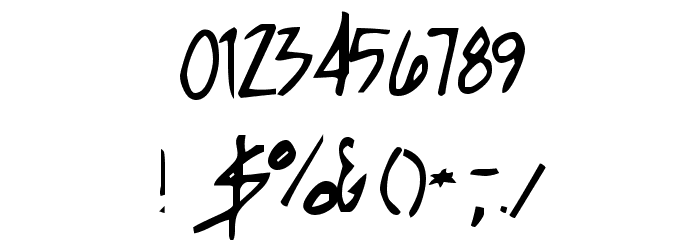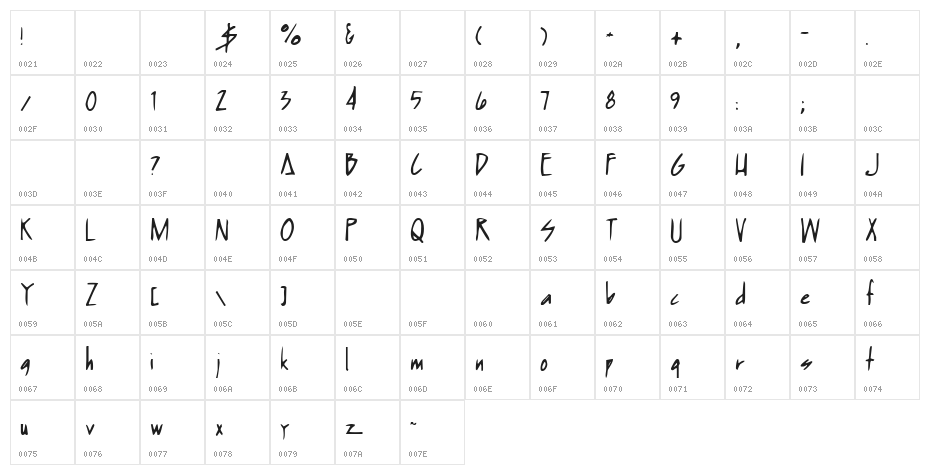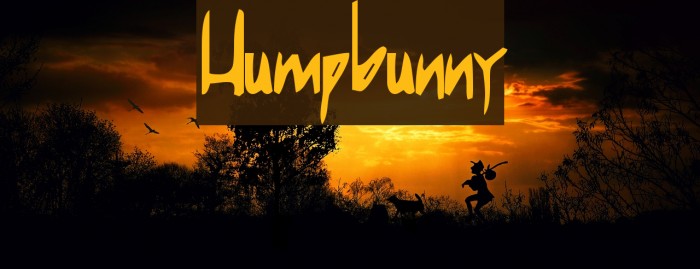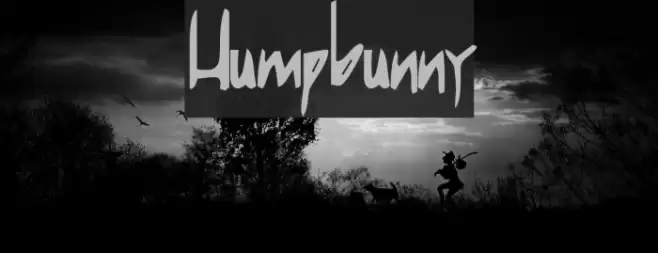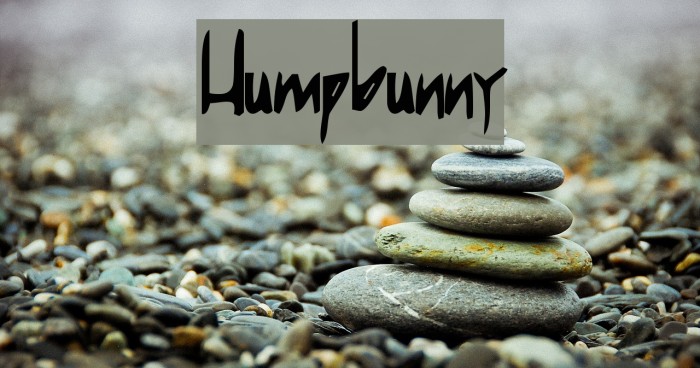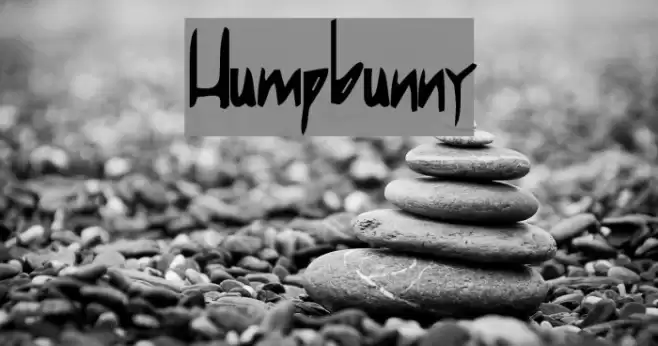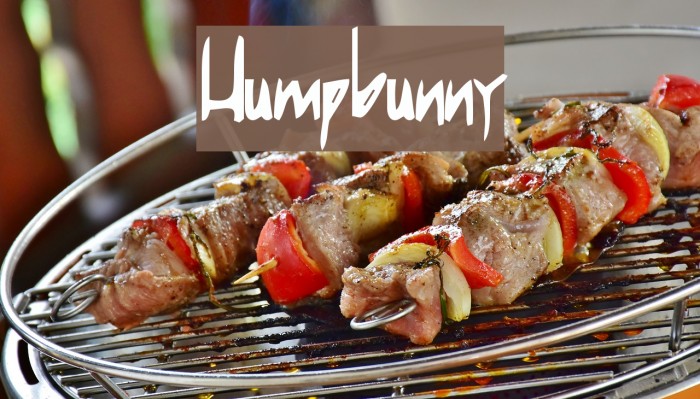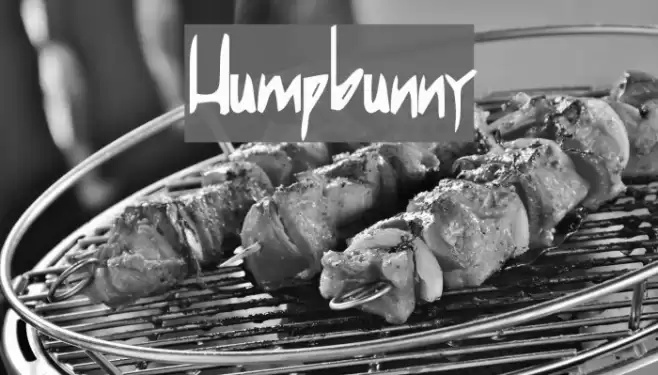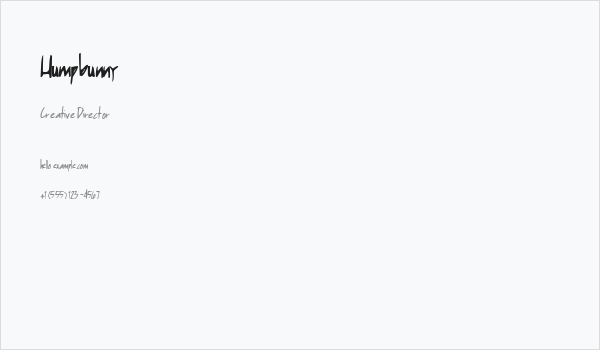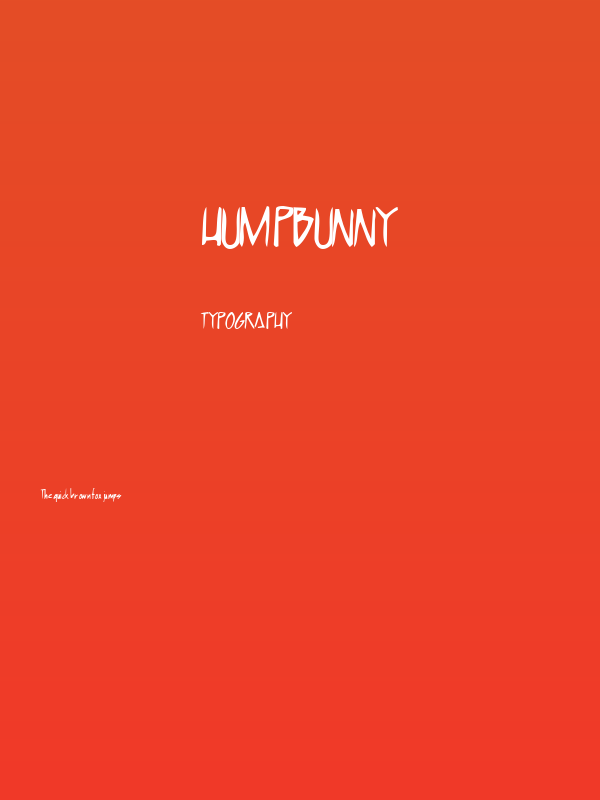
Humpbunny Font
Humpbunny Description
This font exhibits a dynamic and energetic style, characterized by its handwritten appearance. The uppercase letters are bold and slightly slanted, giving a sense of movement and flair. The lowercase letters maintain a consistent flow, with some characters featuring unique loops and curves that enhance its informal and artistic feel. The numbers are distinct and maintain the same lively style, ensuring readability while adding a playful touch. Special characters are creatively designed, fitting seamlessly with the overall aesthetic. This font is ideal for projects that require a personal and expressive touch.
| Proposed Projects | Ideal for creative projects such as posters, invitations, and branding materials that require a personal and artistic touch. |